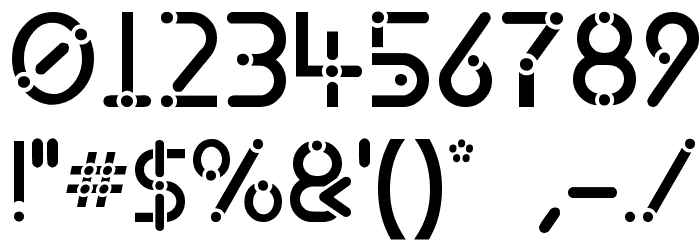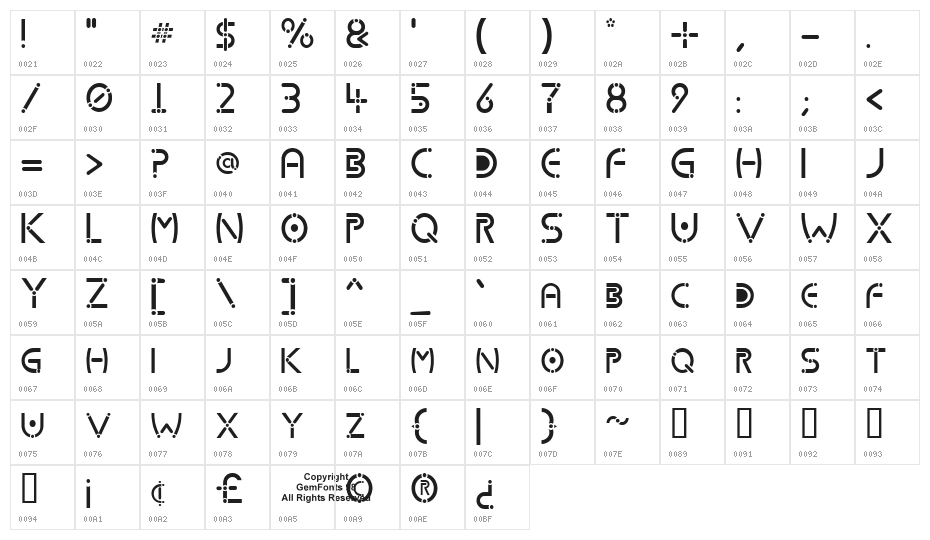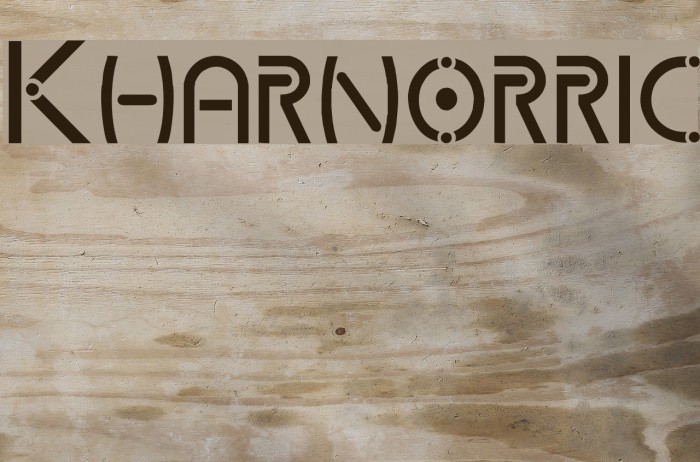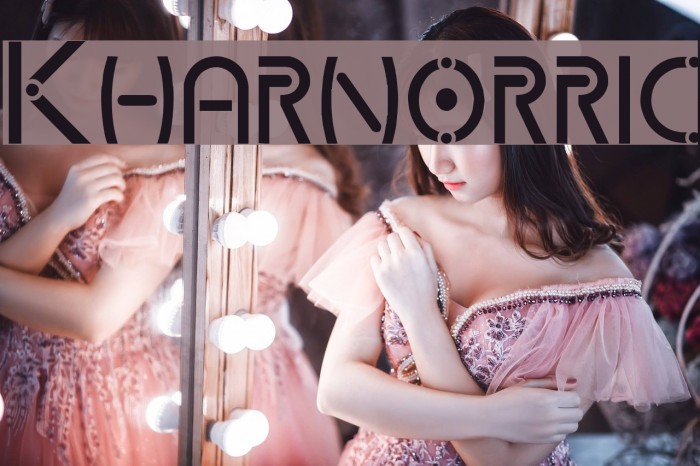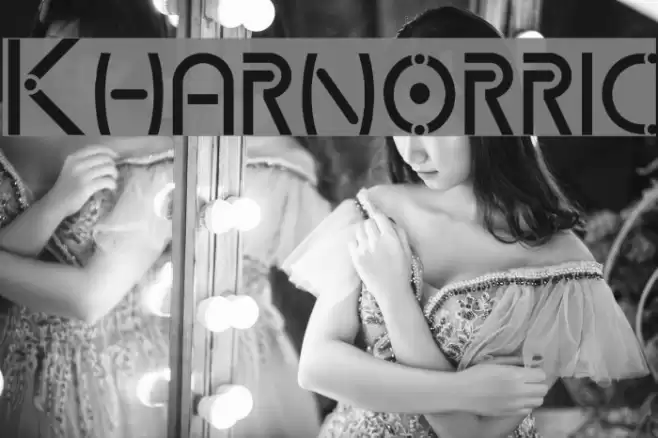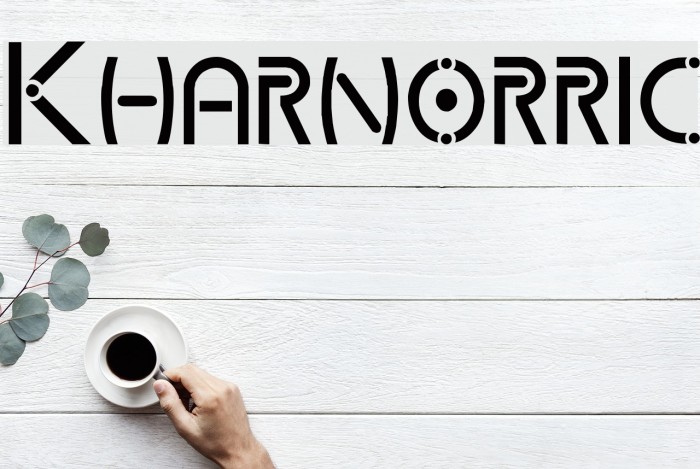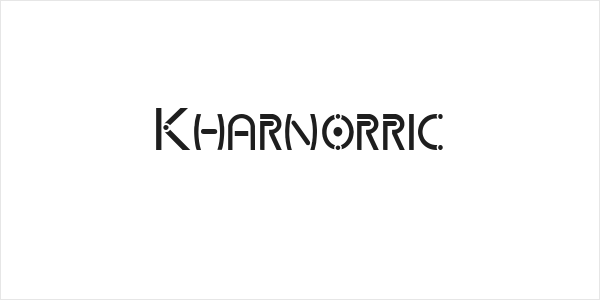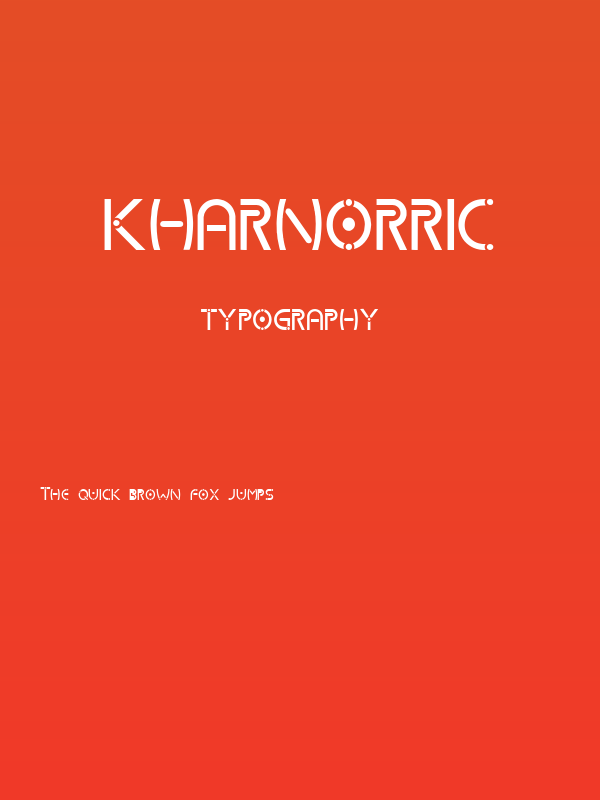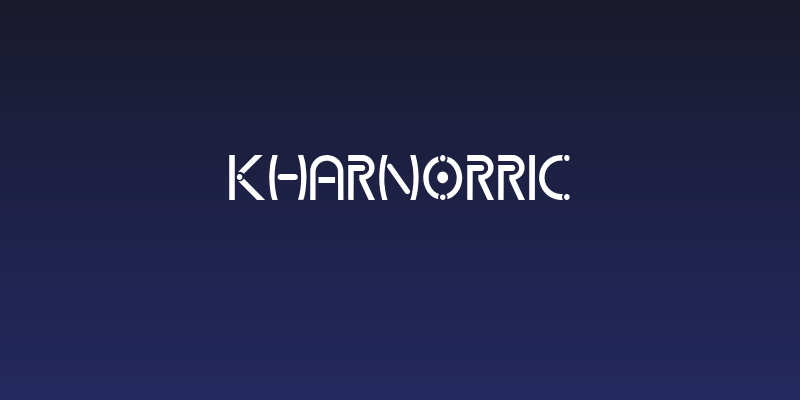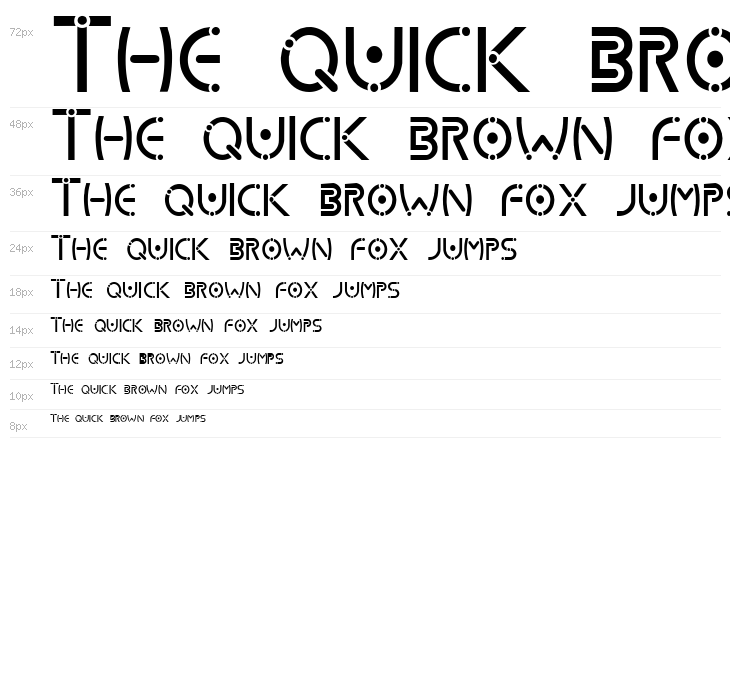
Kharnorric Font
Kharnorric Description
This font features a futuristic and geometric design, characterized by its unique use of circular cutouts and linear strokes. Each character is crafted with precision, combining bold lines with circular elements that create a sense of movement and modernity. The font's distinct style is both eye-catching and versatile, making it suitable for a variety of creative projects. Its structured yet playful appearance is ideal for conveying a sense of innovation and forward-thinking. The characters are evenly spaced, ensuring readability while maintaining a strong visual impact.
| Proposed Projects | Ideal for technology branding, sci-fi posters, video game titles, and modern advertising. |